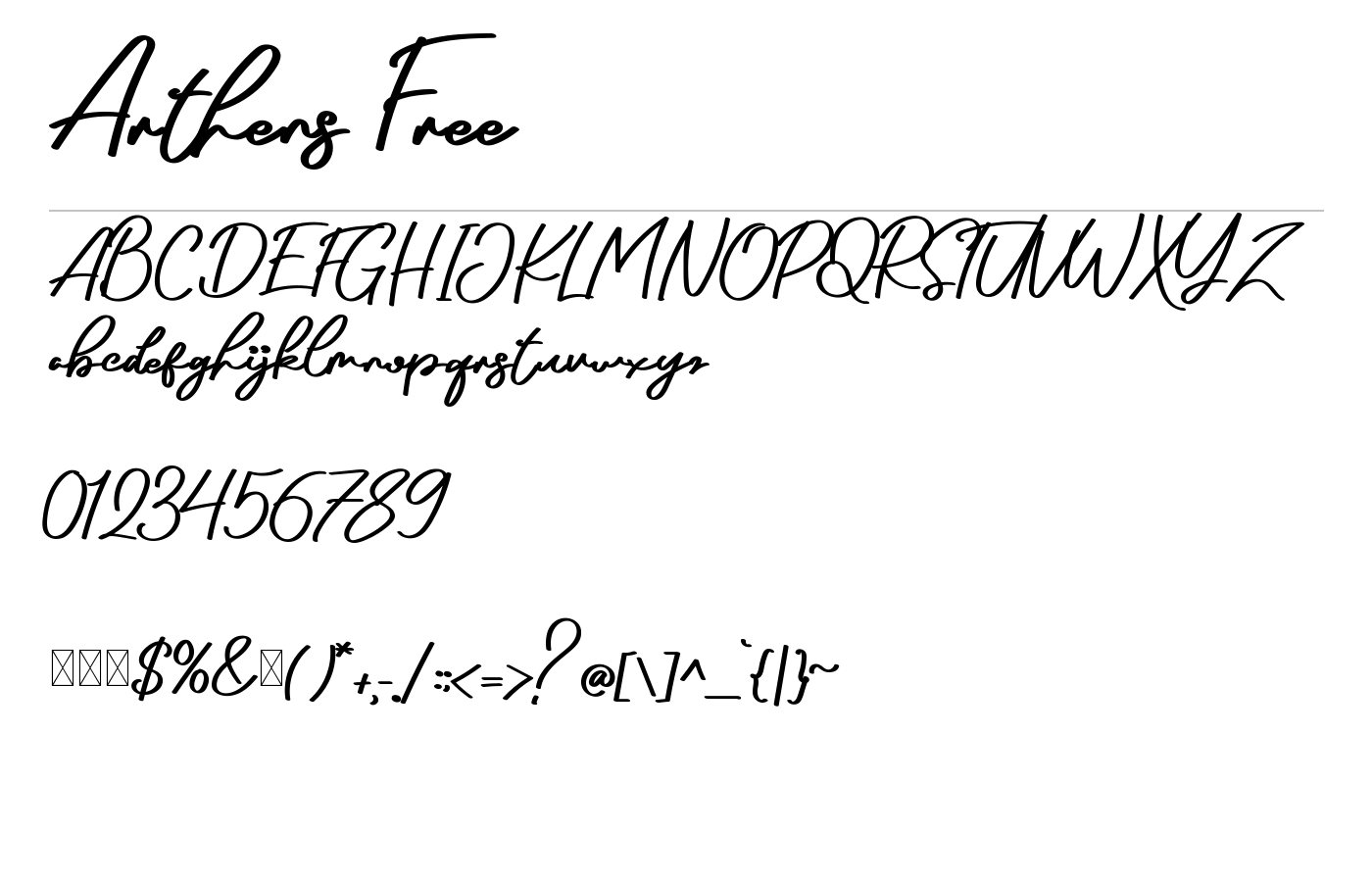
Arthens Free Font is a stylish script typeface with a fluid, calligraphic feel that combines elegant uppercase letters with a casual, handwritten lowercase. Its slender, slightly slanted strokes and moderate contrast create a refined yet approachable look, perfect for adding a personal touch to invitations, branding, and creative headlines. This font works especially well where a sophisticated, artistic vibe is desired without sacrificing readability.
Arthens Free Font